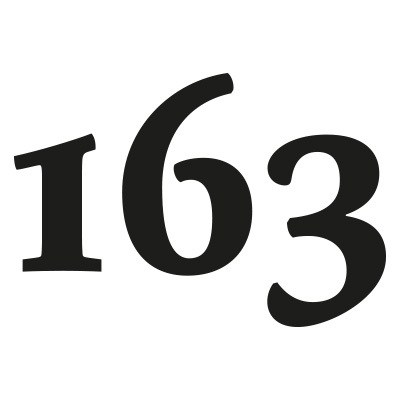
Figures with ascenders and descenders like lowercase letters.
Dutch: uithangende cijfers
French: chiffres elzéviriens (chiffres suspendus)
German: Mediävalziffern (Minuskelziffern)
Italian: Numeri saltellanti
Polish: cyfry mediewalowe, cyfry nautyczne
Russian: минускульные цифры
Spanish: Elzevirianos, cifras antiguas o de caja baja